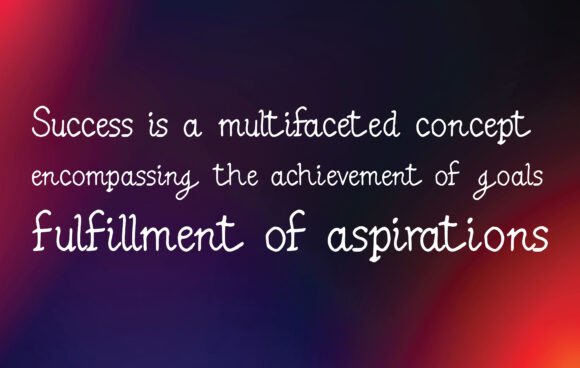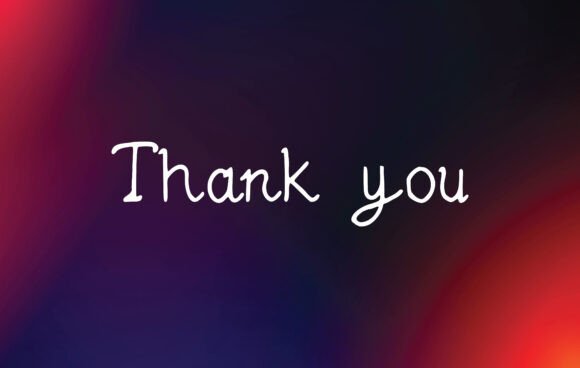
The Ultimate Design Companion: Astrid Font
As a designer, I’ve had my fair share of frustrating moments – like when you’re working on a project, and you just can’t seem to find the right font. I recall one particularly challenging project where I was tasked with creating a wedding invitation suite. The client wanted something elegant, yet playful, and I was determined to deliver. That’s when I stumbled upon the Astrid Font, and it quickly became my go-to favorite.
So, what makes Astrid Font so special? Let’s dive into the good stuff and some of its quirks.
- ✨ Versatility: Astrid Font is incredibly versatile, making it perfect for a wide range of design projects, from magazine covers to social media posts.
- ✅ Readability: Its clear and easy-to-read design makes it an excellent choice for both titles and body text.
- 💫 Style and Personality: Astrid Font brings a unique blend of style and personality to any design project, making it stand out from the crowd.
While Astrid Font is an excellent choice, there are a few things to keep in mind:
- 🤔 Limited Condensed Styles: Some users have noted that Astrid Font could benefit from more condensed styles, which might limit its use in certain design situations.
The story behind Astrid Font’s creation is shrouded in mystery, but it’s said that the designer was inspired by classic typography and modern digital trends. The goal was to create a font that would be both timeless and trendy – a true chameleon of the design world.
Q: What makes Astrid Font so versatile?
A: Astrid Font’s versatility comes from its clean design, making it suitable for a wide range of projects, from titles and headings to body text.
Q: Does Astrid Font support OpenType features?
A: Yes, Astrid Font includes OpenType features, such as stylistic alternates, glyphs, and ligatures, which can be accessed in compatible design software.
Q: Is Astrid Font suitable for body text?
A: Absolutely! Astrid Font’s clear and easy-to-read design makes it an excellent choice for body text, especially in digital applications.